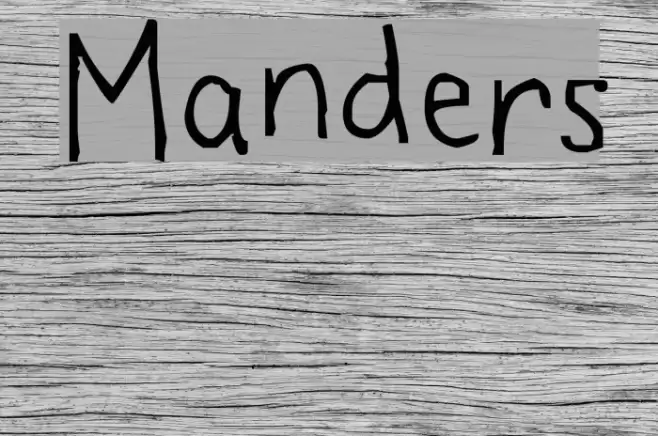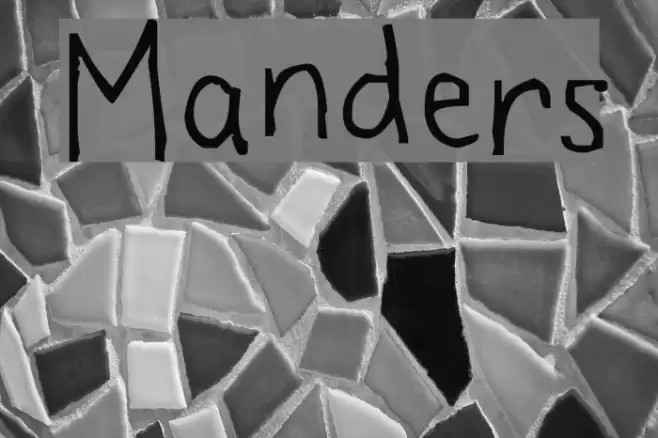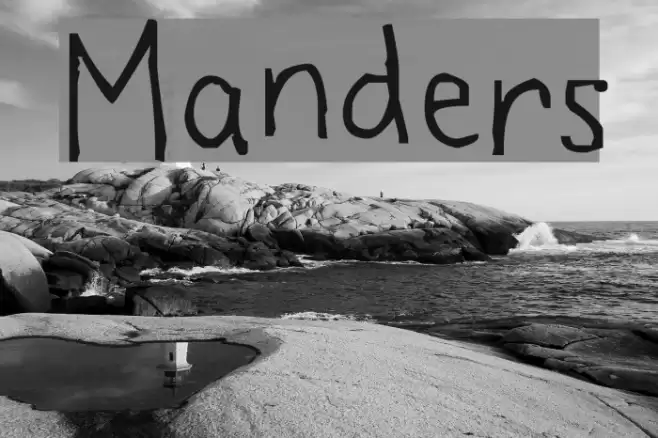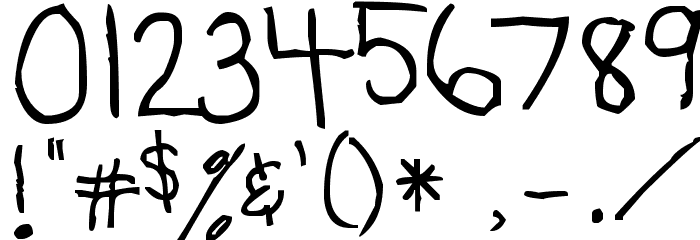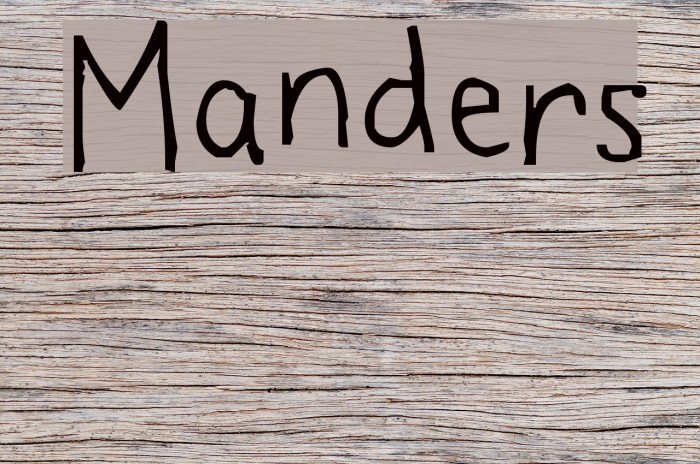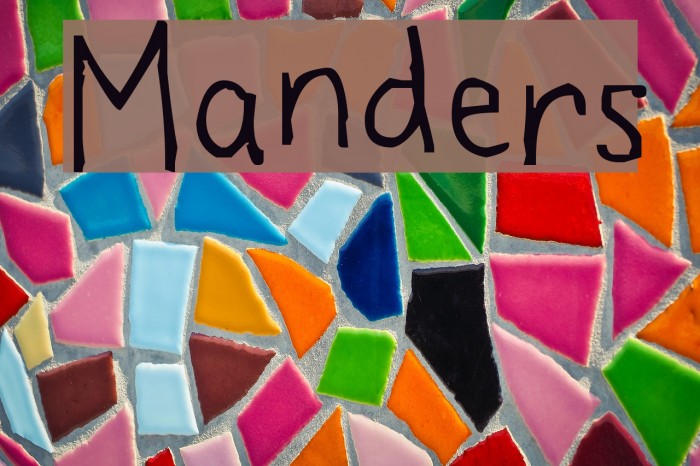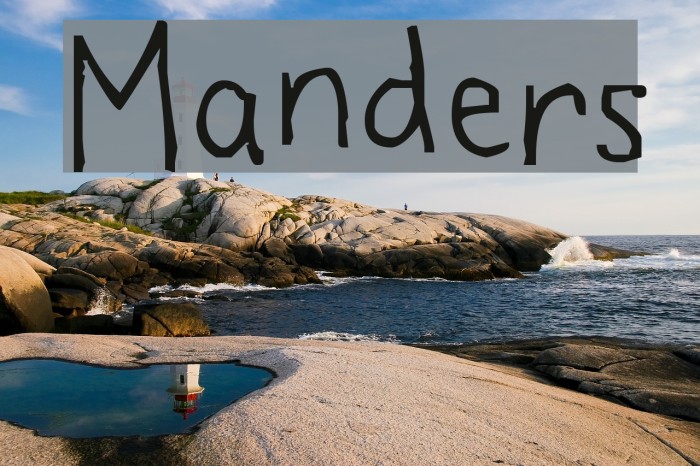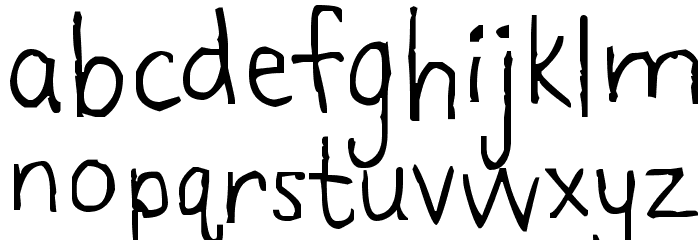
Manders Font
Manders Description
This font exhibits a playful, handwritten style with a casual and informal appearance. The characters are unevenly weighted, giving it a dynamic and lively feel. The strokes are irregular, with a slightly rough texture that adds to its charm. The uppercase letters are bold and prominent, while the lowercase letters maintain a consistent flow, enhancing readability. Numbers and special characters follow the same whimsical design, making it suitable for creative projects. The overall look is approachable and friendly, perfect for conveying a personal touch.
A playful, handwritten font with a casual and informal style from Uncategorized fonts.
- Proposed Projects: Ideal for greeting cards, children's books, personal blogs, and creative branding.
- Overall Style: Casual
- Use Case: Headlines, Logos, Informal Text